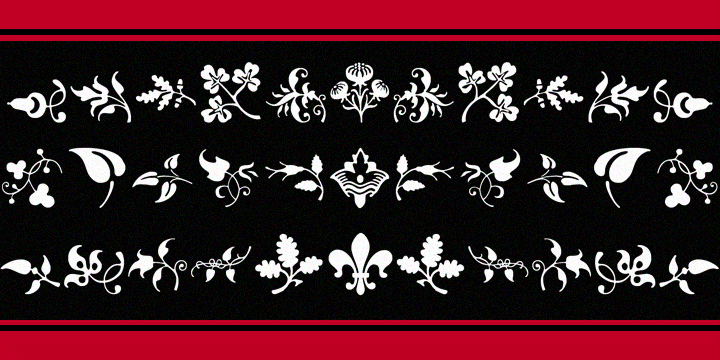
Castle Fleurons Font Free Download is a decorative dingbat typeface featuring intricate fleurons, ornaments, and medieval-inspired embellishments. Perfect for invitations, certificates, vintage posters, logos, book covers, and design projects that need ornamental accents, this font adds elegance, history, and artistry to your work. Castle Fleurons Font is ideal for enhancing layouts with beautiful, timeless decorative elements.
With Castle Fleurons Font Free Download, you’ll receive a complete set of unique symbols and ornaments, providing endless creative possibilities. Whether you’re framing text, designing page borders, or adding vintage flourishes to a logo, this font offers versatility and style for both print and digital designs.
Add historical charm and ornamental beauty to your designs with Castle Fleurons Font Free Download. Its intricate details help your creative projects stand out with sophistication and visual richness.